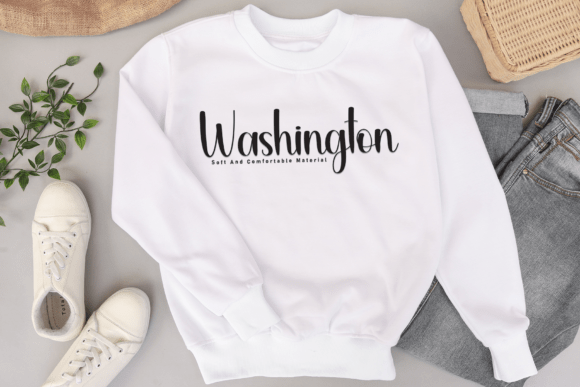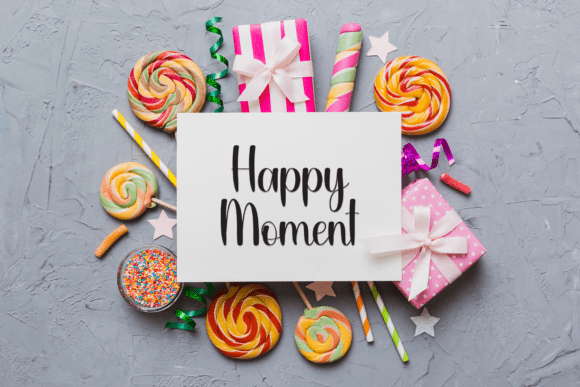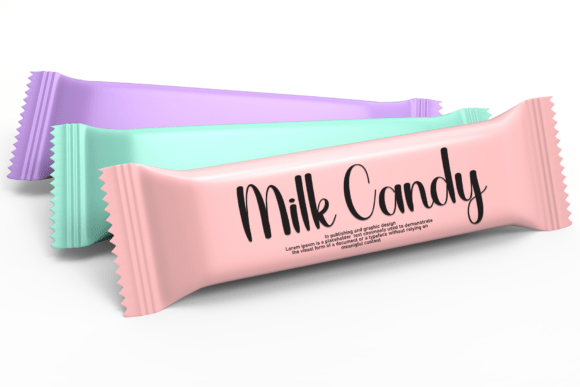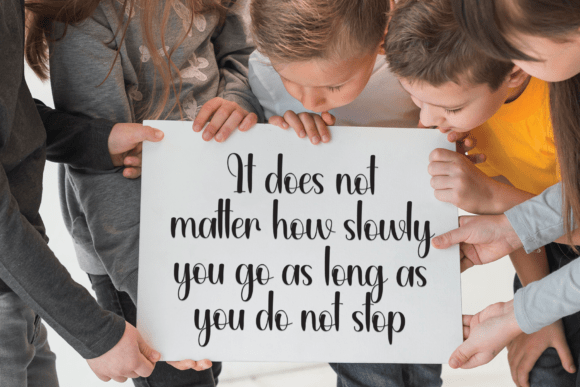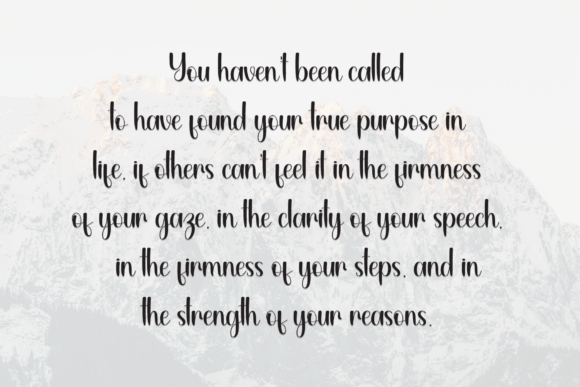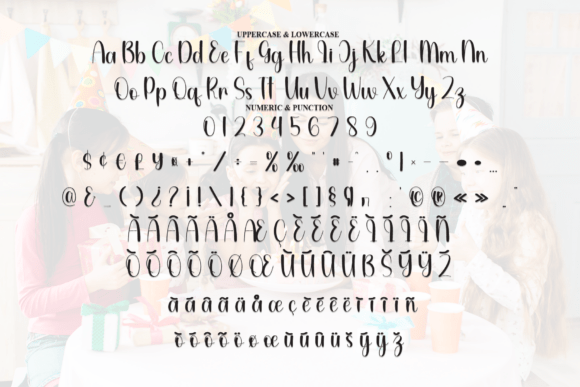
Introducing Happy Birthday Font: The Perfect Celebration Companion
Are you tired of using the same old fonts for your special occasions? Look no further! Happy Birthday Font is a cheerful and charming modern calligraphy font designed to bring joy to your celebrations. With its flowing curves and smooth strokes, it’s perfect for making your birthday cards, party invitations, event banners, social media greetings, and more truly unforgettable.
A Font that Captures the Spirit of Celebration
Happy Birthday Font is more than just a font – it’s an experience. This playful yet elegant script captures the spirit of celebration with every letter, making it the perfect choice for designers and crafters who want to add a touch of magic to their creations. Whether you’re designing a birthday card for a loved one or creating an event banner for a party, Happy Birthday Font is sure to bring a smile to everyone’s face.
Key Features of Happy Birthday Font
- Flowing Curves and Smooth Strokes: Happy Birthday Font features beautiful, flowing curves and smooth strokes that give it a modern calligraphy feel.
- Playful yet Elegant: This font strikes the perfect balance between playfulness and elegance, making it suitable for a wide range of celebrations and occasions.
- Highly Versatile: Happy Birthday Font can be used for a variety of projects, including birthday cards, party invitations, event banners, social media greetings, and more.
- Easy to Read: Despite its decorative nature, Happy Birthday Font is easy to read, making it perfect for creating celebratory texts that need to be understood quickly.
Use Cases for Happy Birthday Font
Happy Birthday Font is incredibly versatile and can be used in a variety of creative projects. Here are some ideas to get you started:
- Birthday Cards: Create personalized birthday cards for your loved ones with Happy Birthday Font.
- Party Invitations: Design eye-catching party invitations that set the tone for a fun and festive celebration.
- Event Banners: Use Happy Birthday Font to create stunning event banners that grab attention and create a sense of excitement.
- Social Media Greetings: Add a touch of personality to your social media posts with Happy Birthday Font.
- Crafting Projects: Incorporate Happy Birthday Font into your crafting projects, such as scrapbooking, DIY decorations, and more.
Tips for Using Happy Birthday Font
To get the most out of Happy Birthday Font, here are some tips to keep in mind:
- Pair with Complementary Fonts: Pair Happy Birthday Font with complementary fonts to create visual interest and hierarchy in your designs.
- Experiment with Colors: Try out different colors and textures to add depth and personality to your designs.
- Play with Sizes: Experiment with different font sizes to create emphasis and create a sense of hierarchy in your designs.
- Add Decorations: Add decorations, such as glitter or confetti, to give your designs an extra touch of celebration.